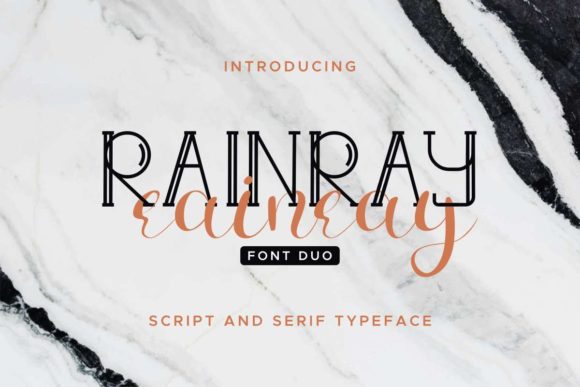
Prepare to be mesmerized by Rainray Font, the enchanting duo that will captivate your designs. Its enchanting script dances alongside a modern serif, offering boundless elegance and versatility.
Imagine the exquisite allure of your restaurant menu, where Rainray's graceful curves guide your patrons through a culinary journey. Its timeless style adds a touch of sophistication to any branding, while its warm embrace enhances greeting cards with heartfelt sentiments.
With Rainray's versatility, you hold the key to unlocking a world of creative possibilities. From the ethereal beauty of wedding invitations to the artistic flair of stationary art, this font breathes life into your imagination. Each social media post becomes an eye-catching masterpiece, while greeting cards radiate with charm and warmth.
Rainray Font is more than just a font; it's an invitation to express yourself with elegance and creativity. Let its enchanting aura inspire you to craft designs that captivate and create lasting impressions. Dive into the world of Rainray Font today and ignite your artistic soul.